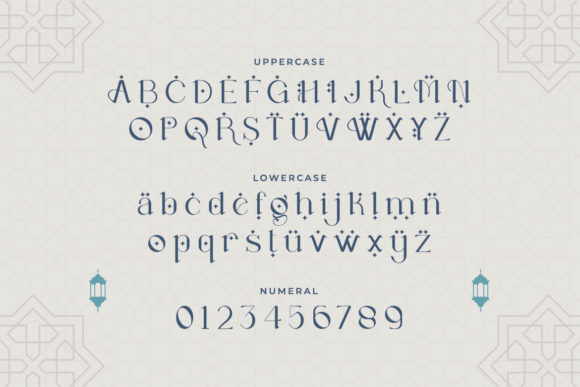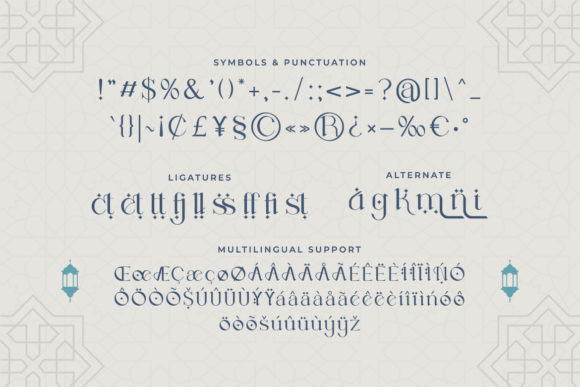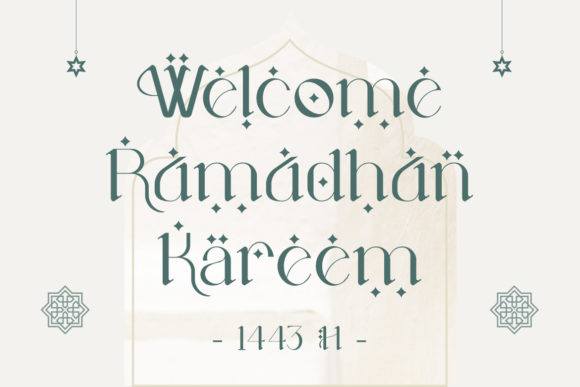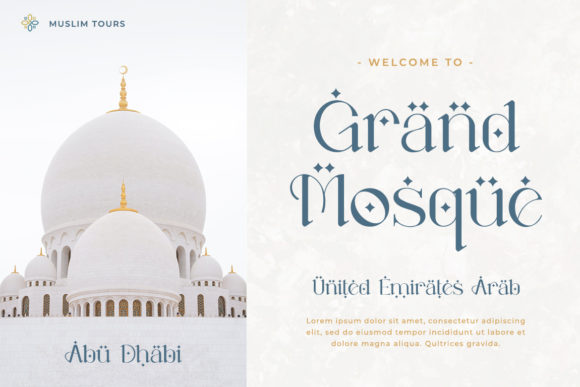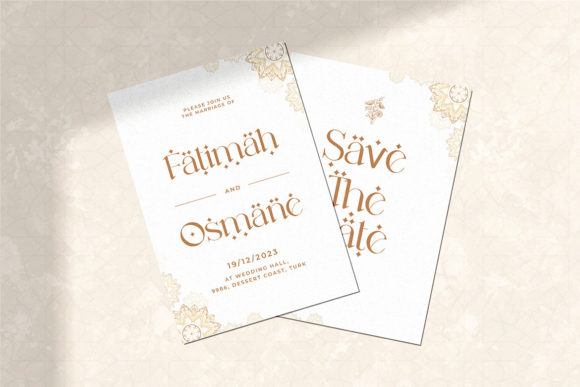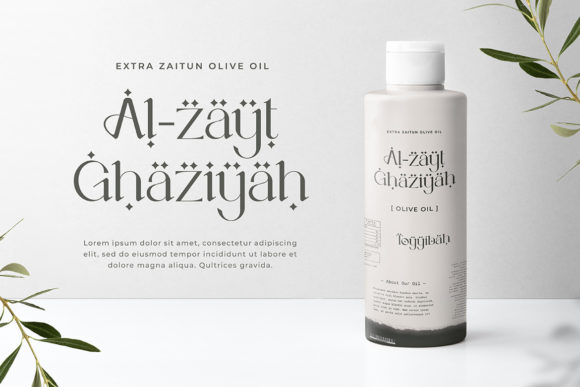
Introduction to Nur Ramadhan Font
Nur Ramadhan is an interesting display font inspired by the style and feel of Arabia.
This font is suitable for branding logos, Islamic themes, Ramadhan themes, and any other projects you can think of .
Key Features of Nur Ramadhan Font